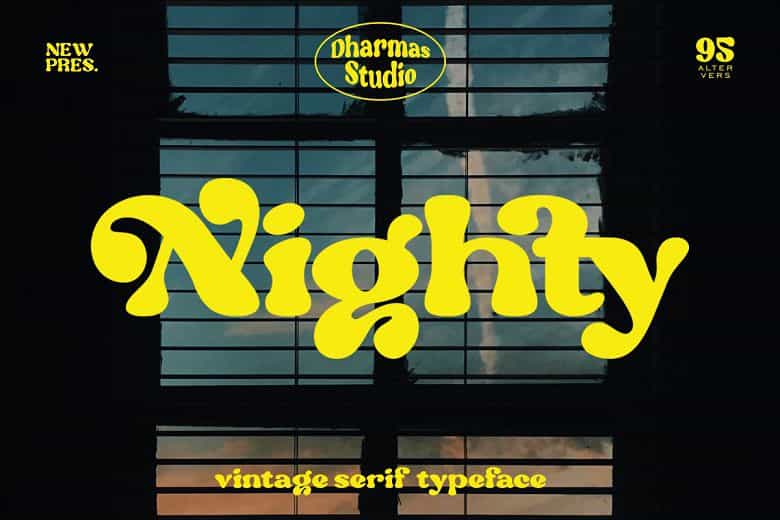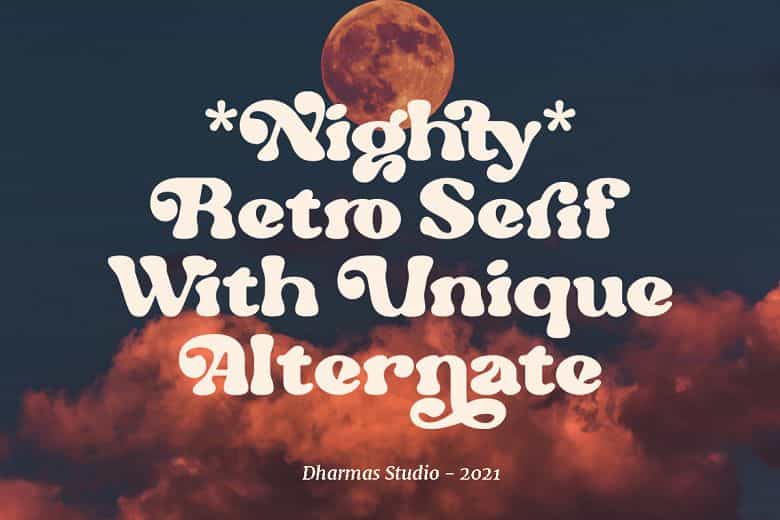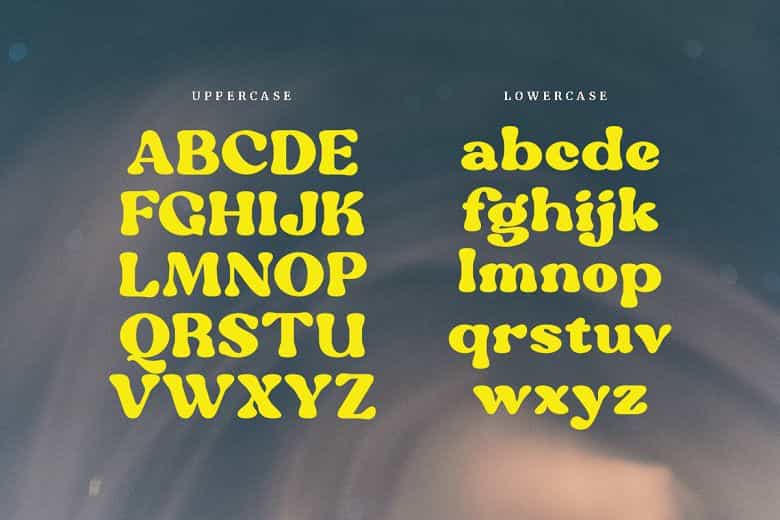
Nighty is an old-style serif font that screams we are here to take you back in time! This design gives a feeling of the seventies with its funky, stylish and undeniably distinctive type of font. This font is very much suitable for those kitschy mood boards and antique logos. It has 95 different alternate and ligature to make any project to have the vintage look you want.